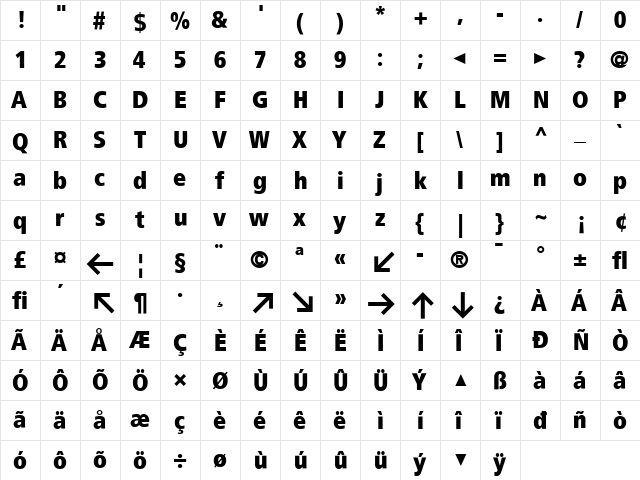
TransitBack Bold
| Foundry | BVG und MetaDesign published by FontShop International |
Design Context for TransitBack Typeface
TransitBack takes a measured approach to typography — its balanced proportions and neutral character make it a reliable workhorse for both digital and print work. The heavy weight commands attention and anchors typographic hierarchies.